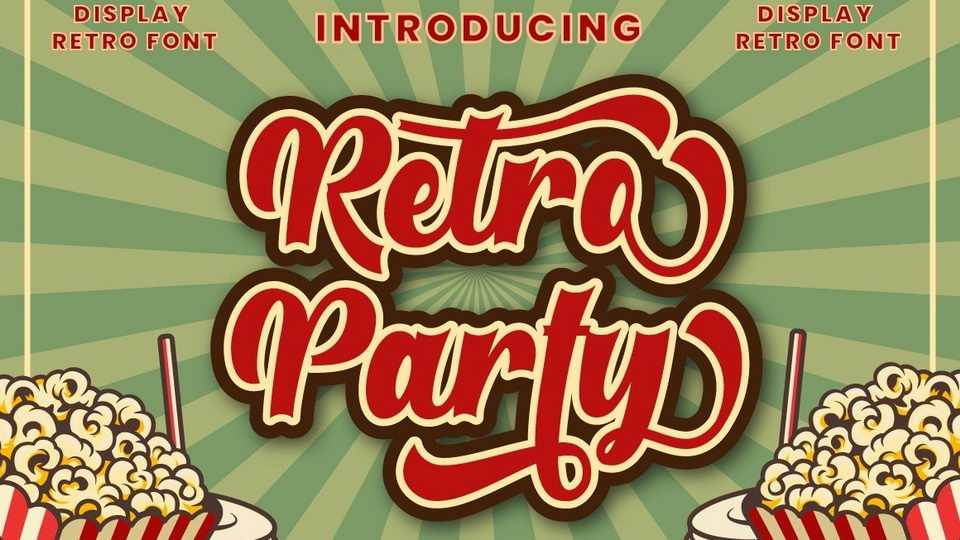
Download Retro Party font, a bold vintage typeface that is inspired by retro lettering and combines classic and modern styles. Retro Party is perfect for vintage and retro design, badge, logos,t-shirt, poster, branding, packaging, signage, book cover and more.